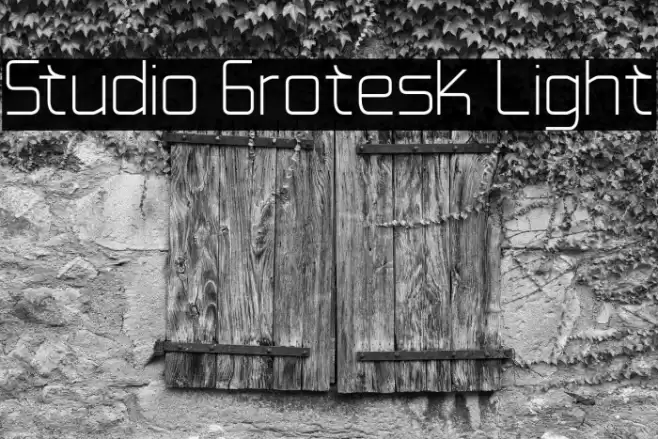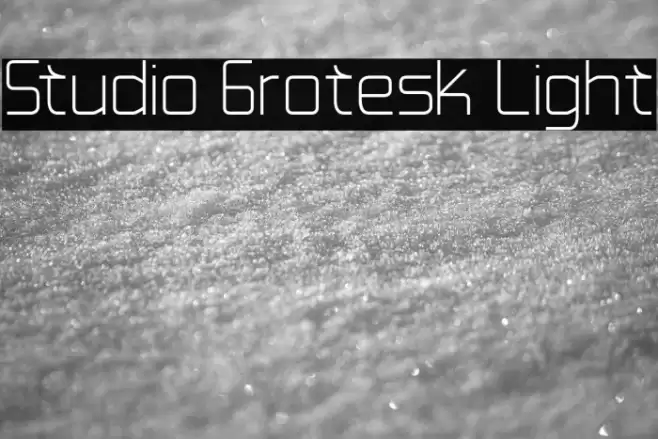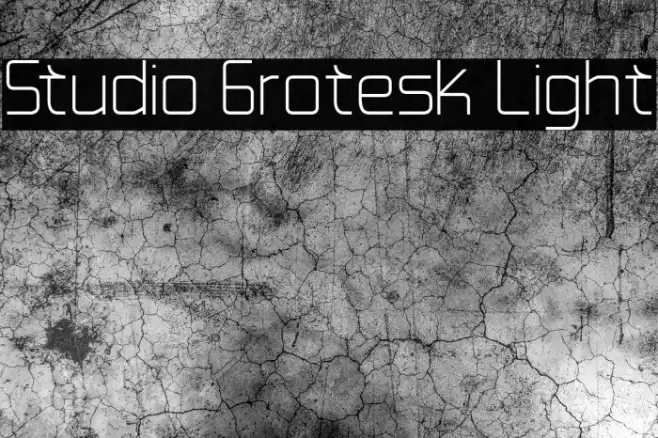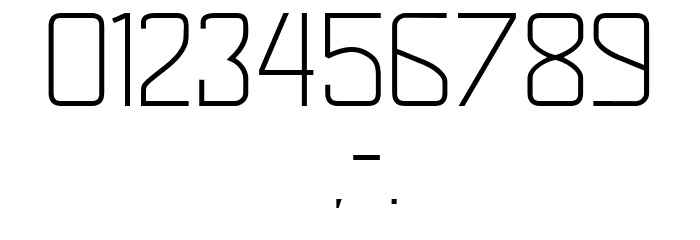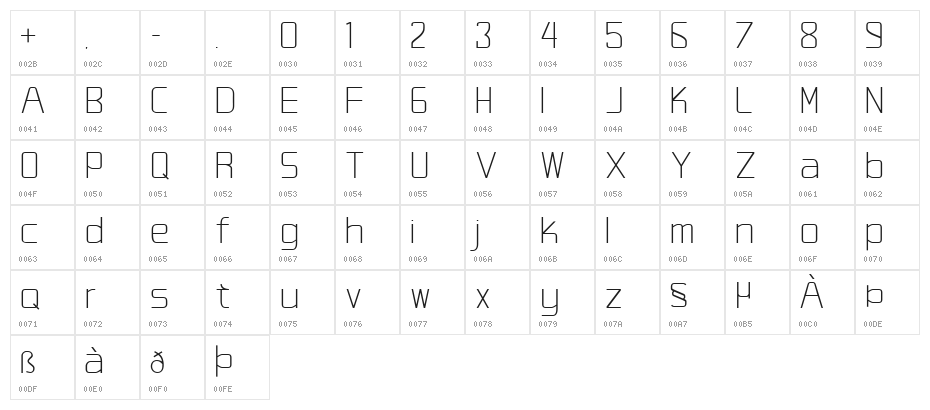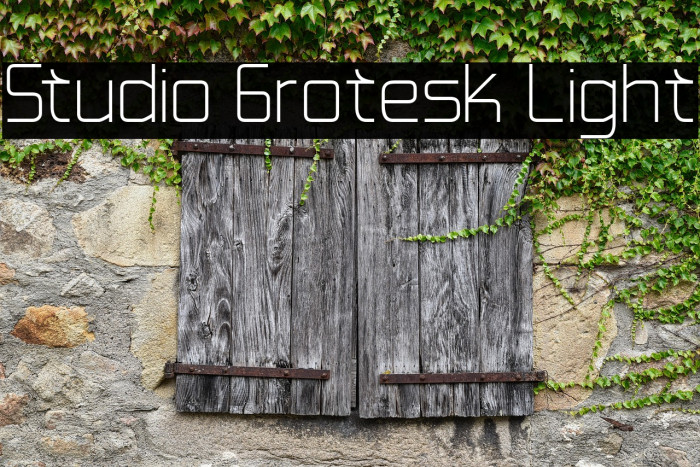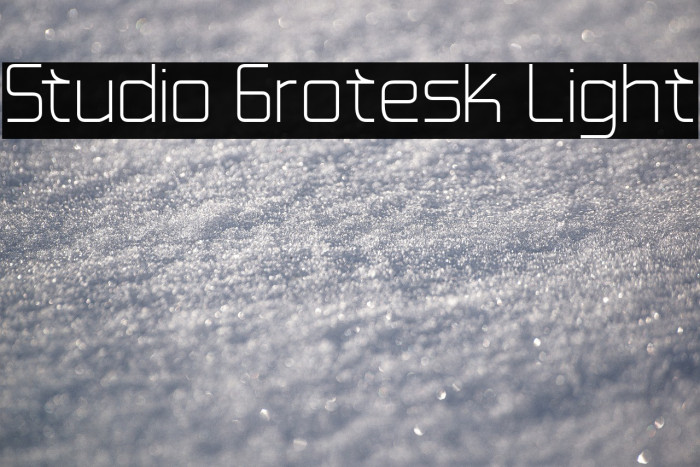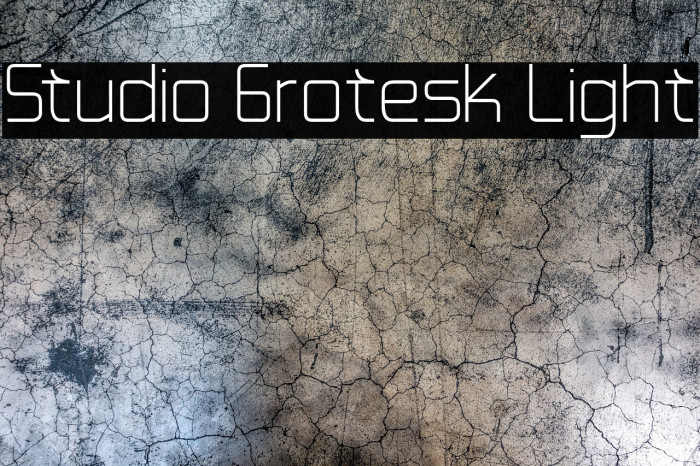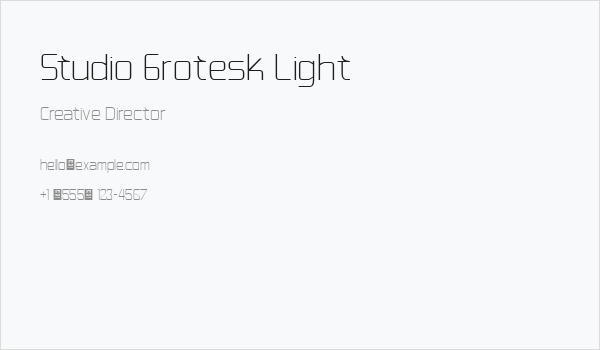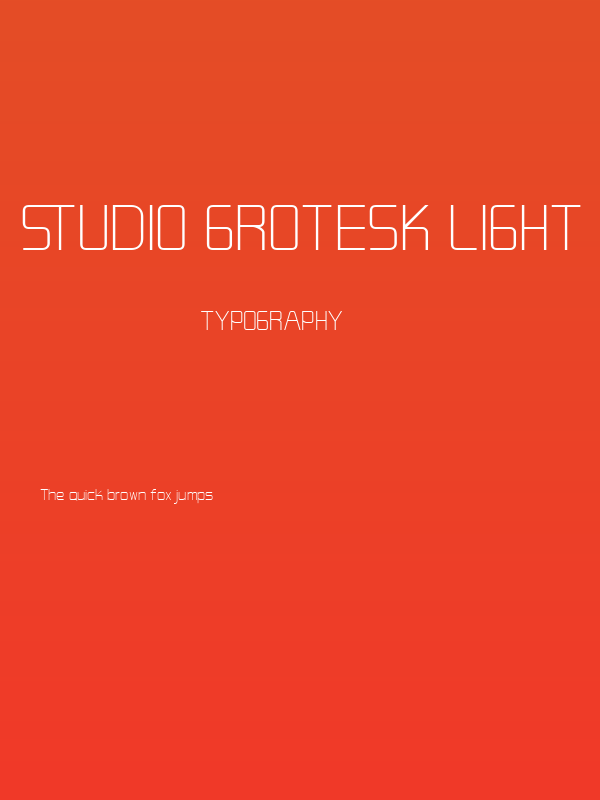
Studio Grotesk Light Font
Studio Grotesk Light Description
This font features a clean and modern sans-serif design with a geometric structure. The characters are uniform in width, contributing to a balanced and harmonious appearance. The strokes are consistent and thin, giving the font a light and airy feel. The uppercase letters are tall and slightly condensed, while the lowercase letters maintain a similar height, enhancing readability. The numerals are distinct and align well with the overall style, making them suitable for various applications. The special characters are simple yet effective, complementing the font's minimalist aesthetic.
A modern, geometric sans-serif font with a light and airy feel from Regular fonts.